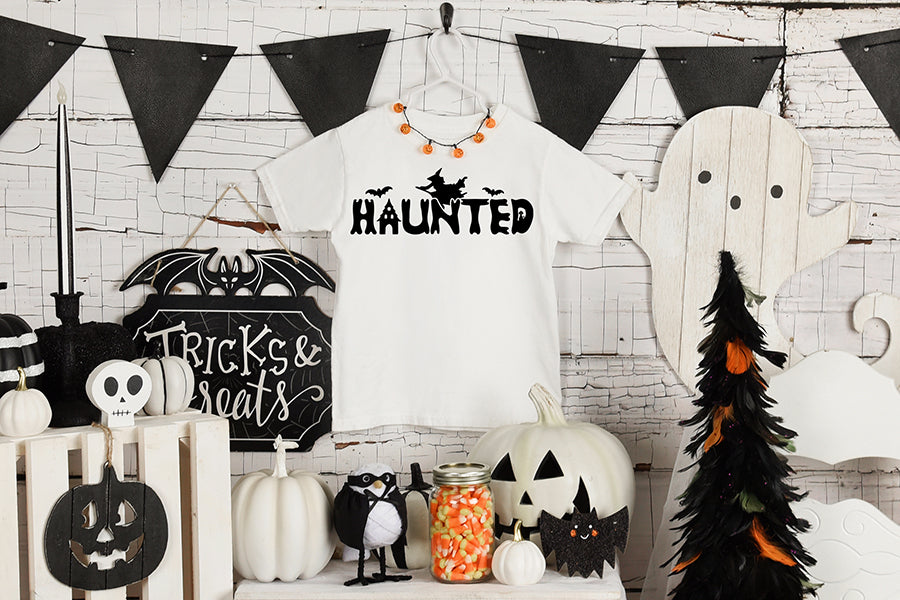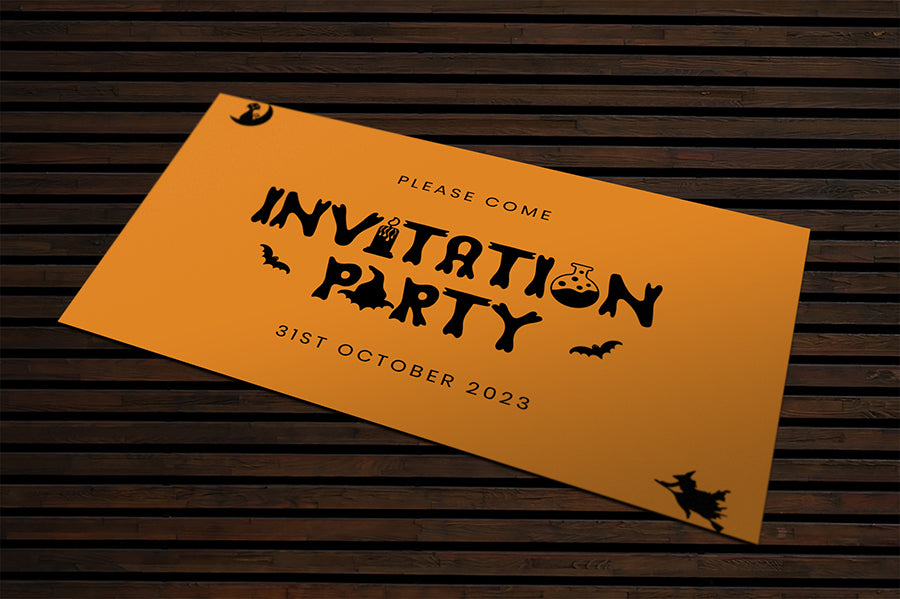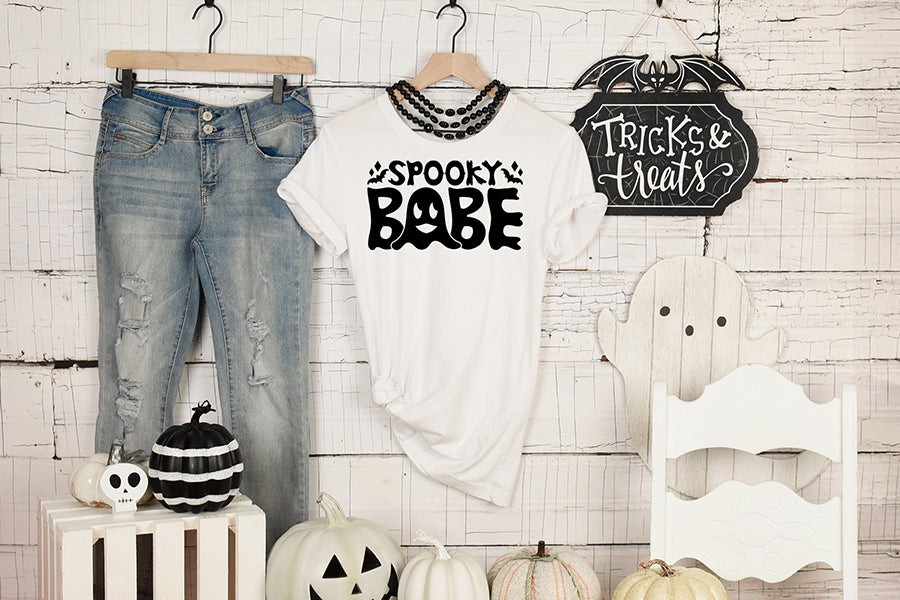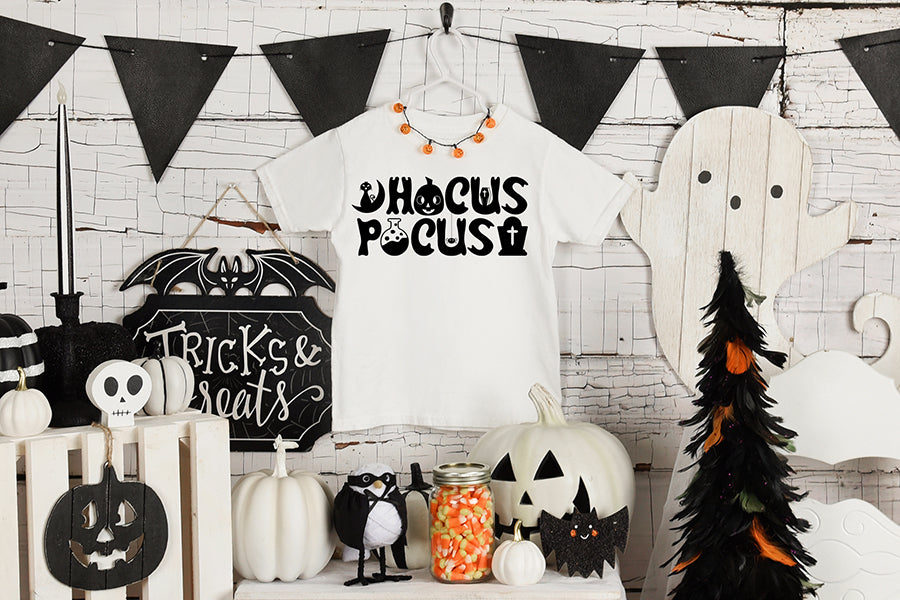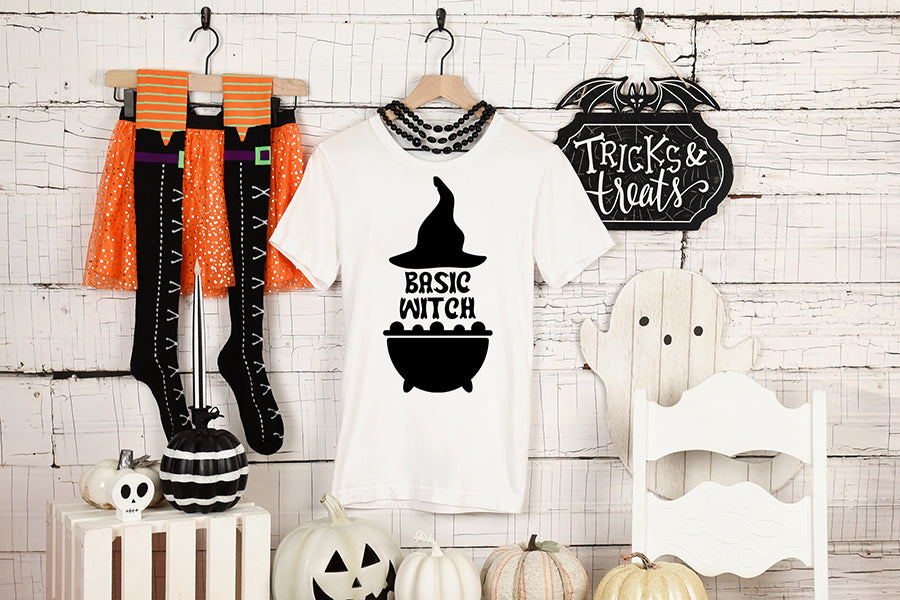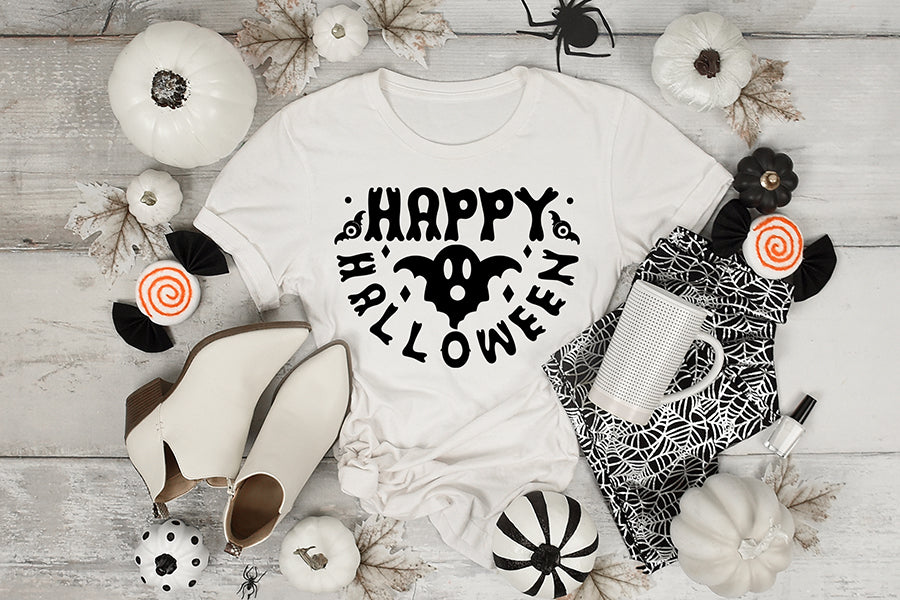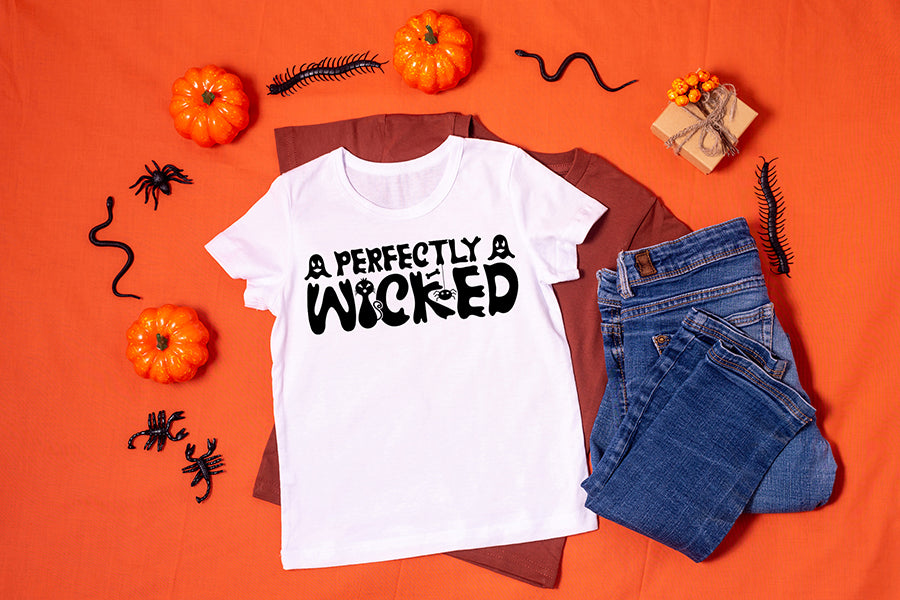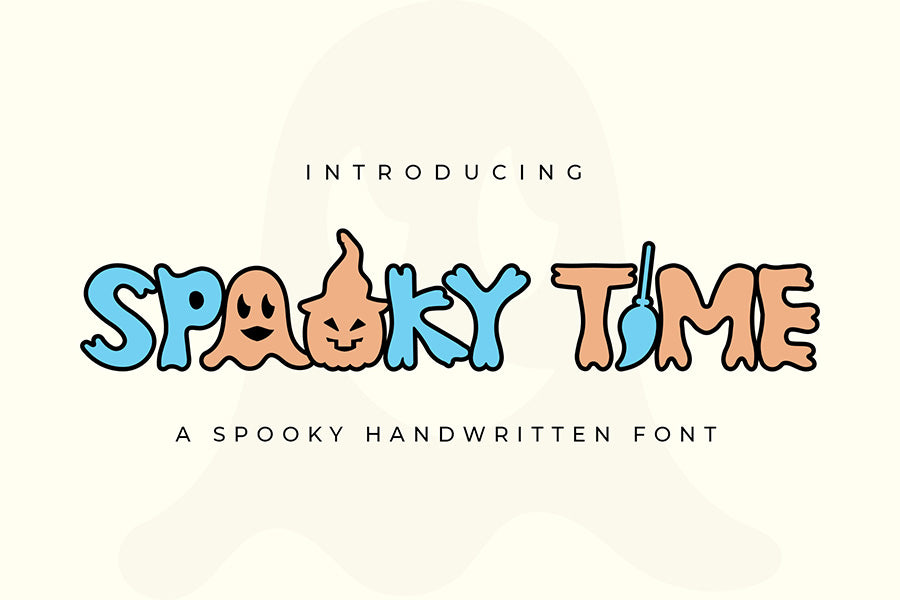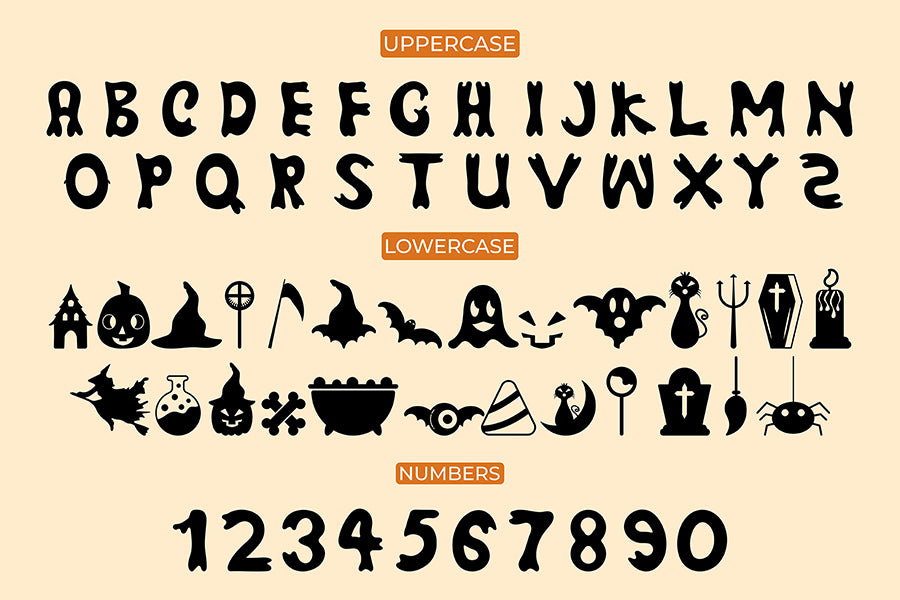
Spooky Time - A Spooky Handwriten Font
Introducing Spooky Time, an exquisite, creepy and playful handwritten display font that contains uppercase, lowercase and numbers. This font is perfect for crafting, branding and decorating. Also for logos, book covers, stationery, magazines, headlines, invitations, fashions, t-shirts, and so much more.